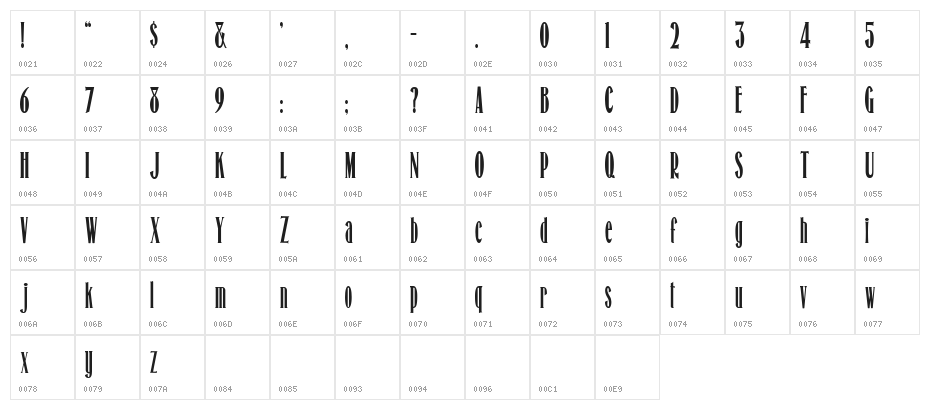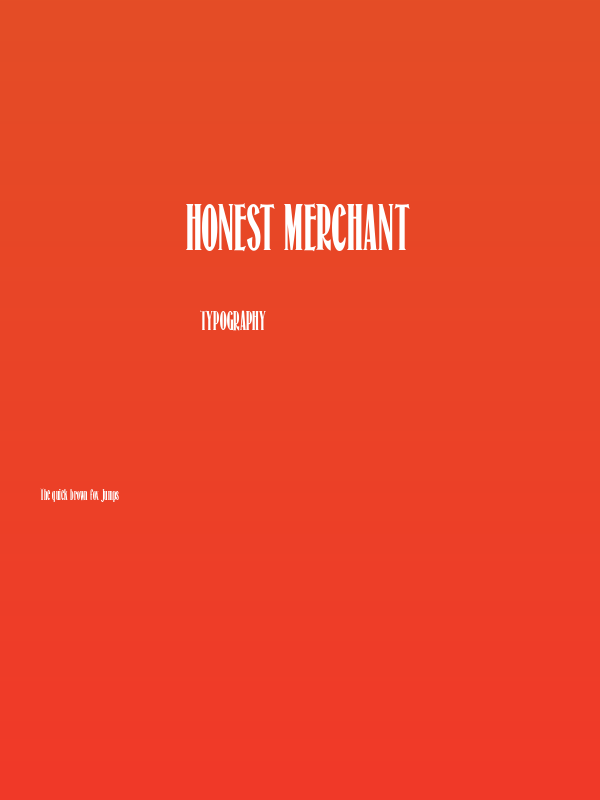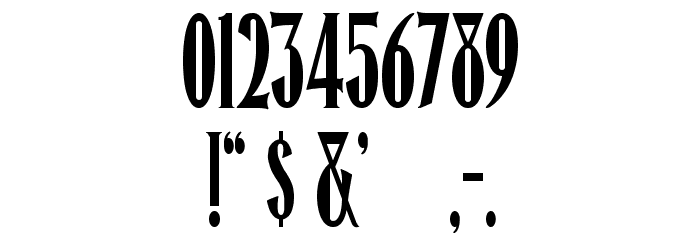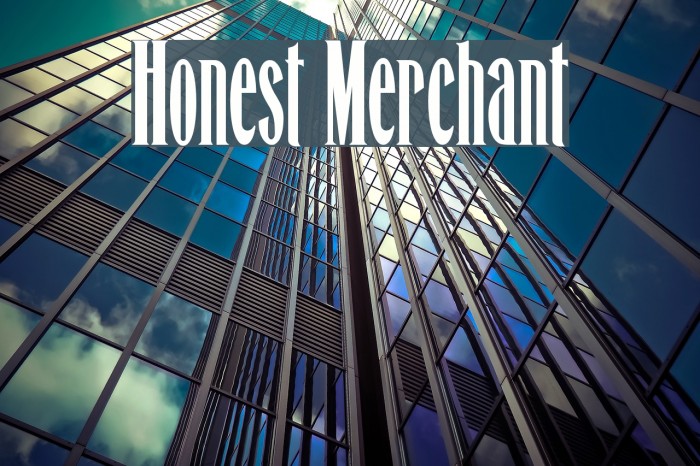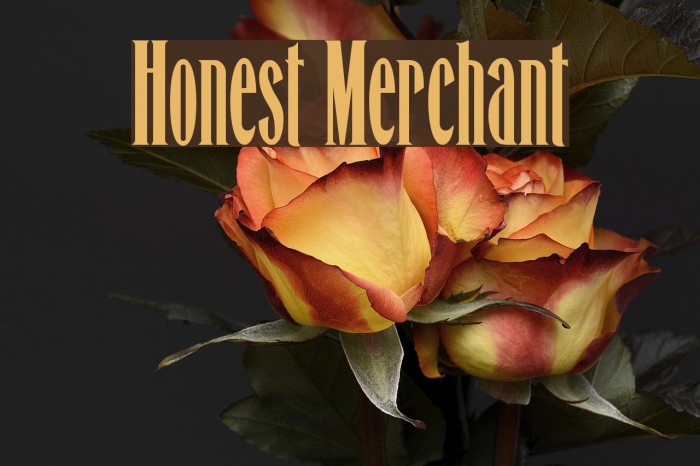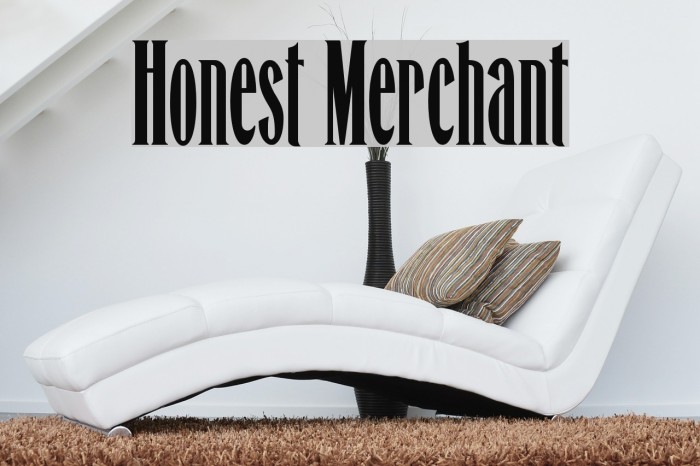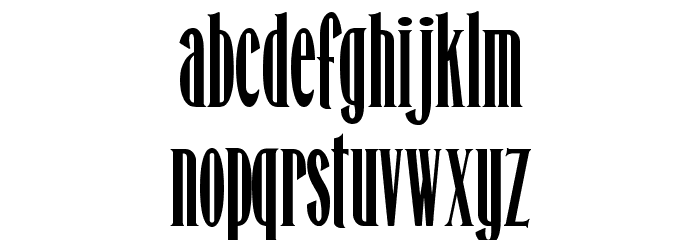
Honest Merchant Font
Honest Merchant Description
This font features a bold and dramatic style with high contrast between thick and thin strokes. The characters are elongated and have a distinct vertical emphasis, giving them a tall and narrow appearance. The serifs are sharp and pronounced, adding to the font's striking and elegant look. The uppercase letters are particularly commanding, while the lowercase letters maintain a consistent style with slightly more curvature. Numbers and special characters follow the same design principles, ensuring a cohesive overall appearance. This font is ideal for making a strong visual impact.
| Proposed Projects | Ideal for headlines, posters, branding, and editorial design where a bold statement is needed. |